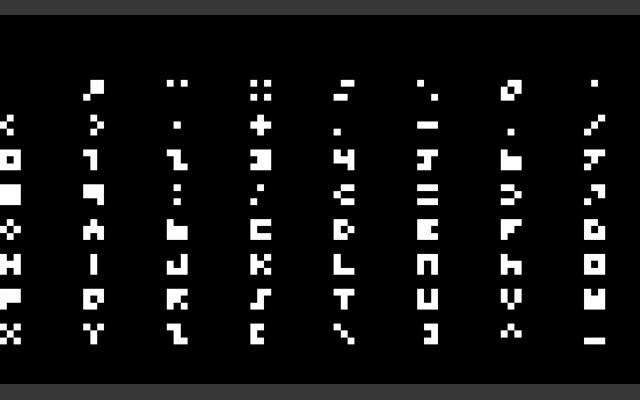
HomePersonal Use FreeBD TinyFont Personal Use Free BD TinyFont FacebookTwitterPinterestWhatsApp 1 of 1 About BD TinyFont Font BD TinyFont is based on a 3×3 pixel grid, the lowest resolution to design readable characters of an alphabet. DOWNLOAD NOW People also explored Freshly Baked Font Smoothline Script Font Penthinks Font Ravishing Solidago Font Venesia Font Vacation Font Bus Wedding Font Match Font Storytime Font 130 0 TagsBD TinyFont Font Previous articleBD BeansNext articleBD Pipe LEAVE A REPLY Cancel reply Comment: Please enter your comment! Name:* Please enter your name here Email:* You have entered an incorrect email address! Please enter your email address here Website: Save my name, email, and website in this browser for the next time I comment. Personal Use Free Bethania Personal Use Free Read more about this font Sweet Someday Personal Use Free Read more about this font Einstaint Personal Use Free Read more about this font Urkelian Personal Use Free Read more about this font BLOG Elegant Wedding Invitation Fonts – Handwritten & Script Fonts Elegant Wedding Invitation Fonts Your wedding day is one of the most important moments of your life, and every detail matters—including your invitation design. Our... To increase your work productivity, choose the most readable fonts. Exploring Font Trends Best Fonts for YouTube Videos: Make Your Thumbnails Stand Out